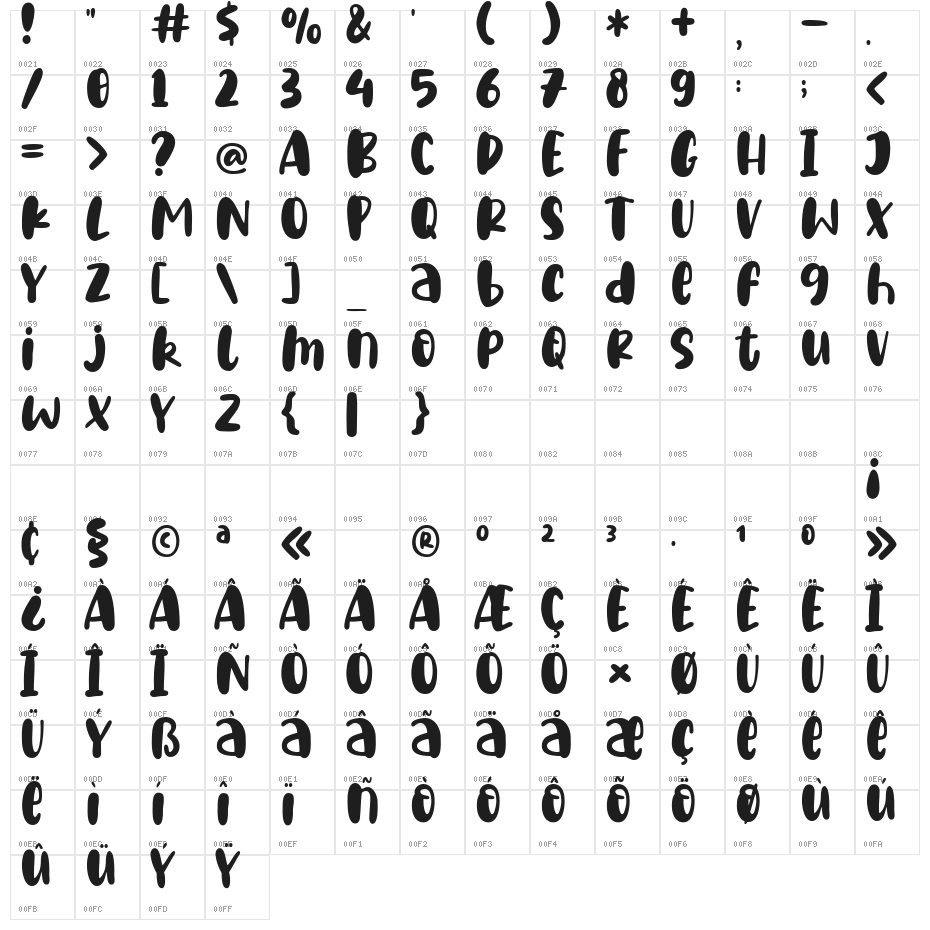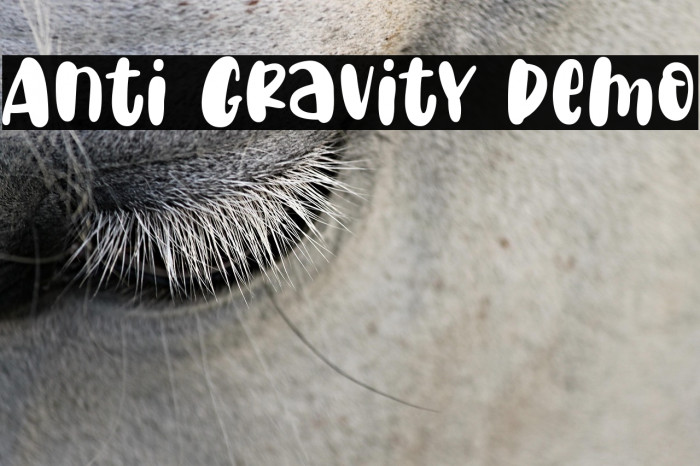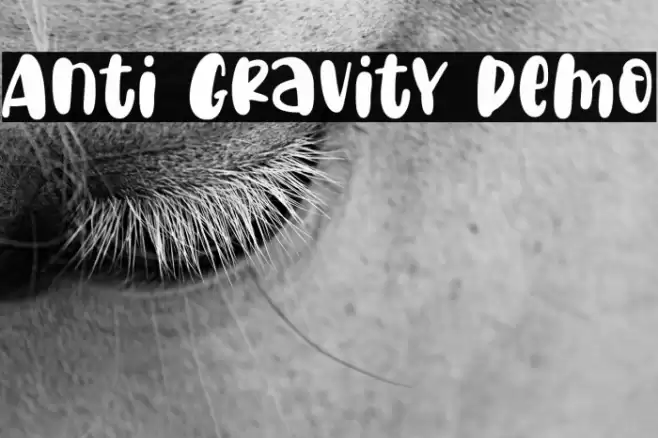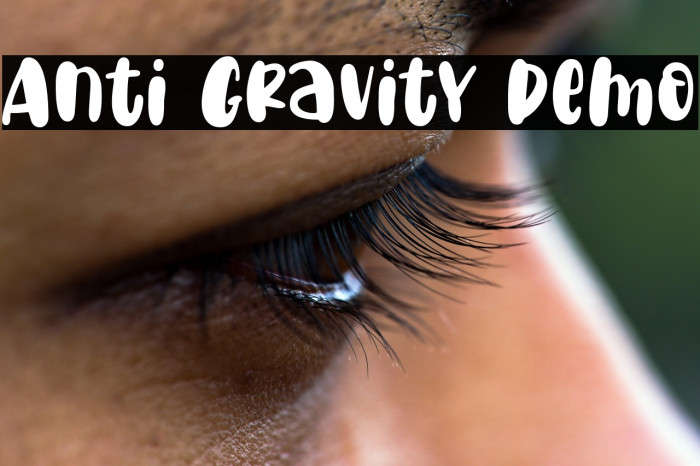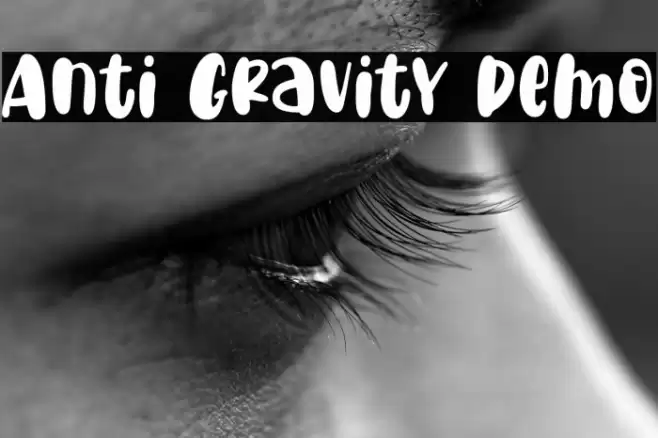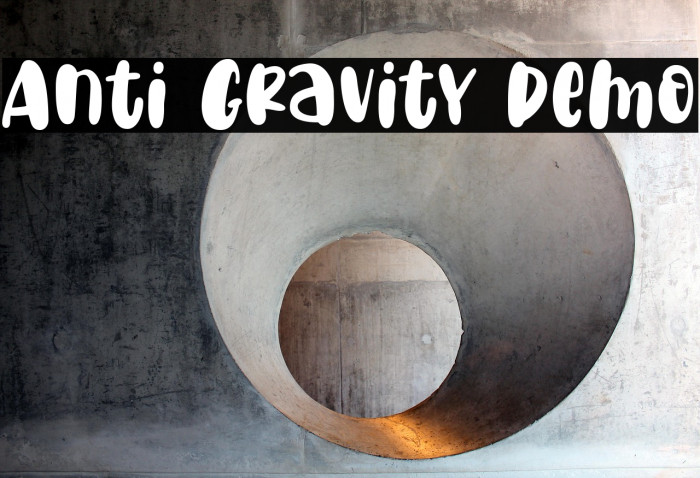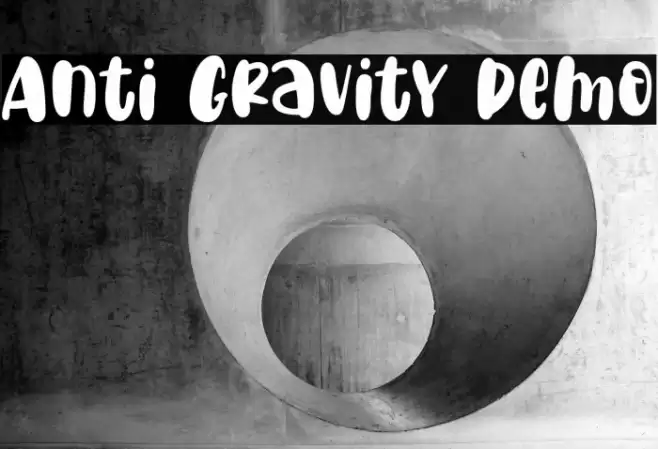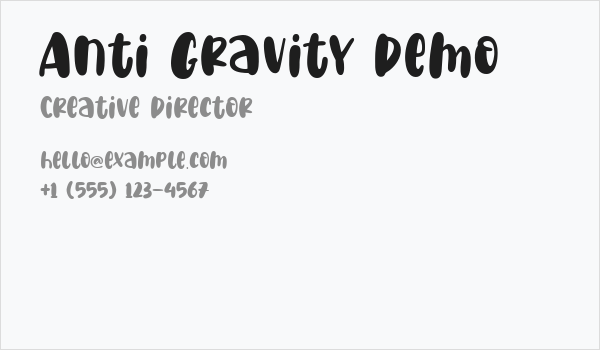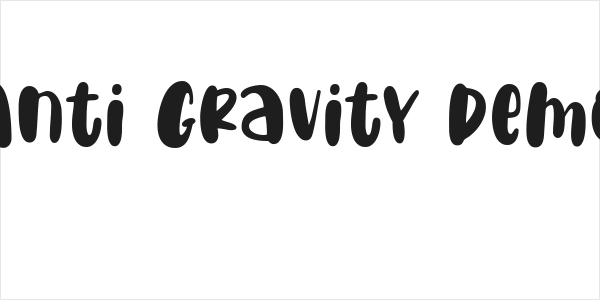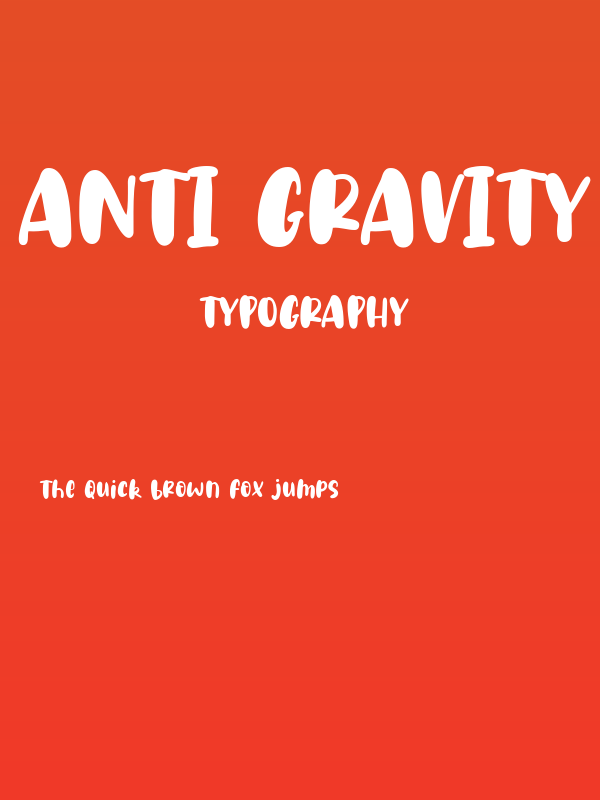
Anti Gravity Demo Font
| Style général | Playful, Casual |
| Projets proposés | Ideal for greeting cards, children's books, playful branding, and social media graphics. |